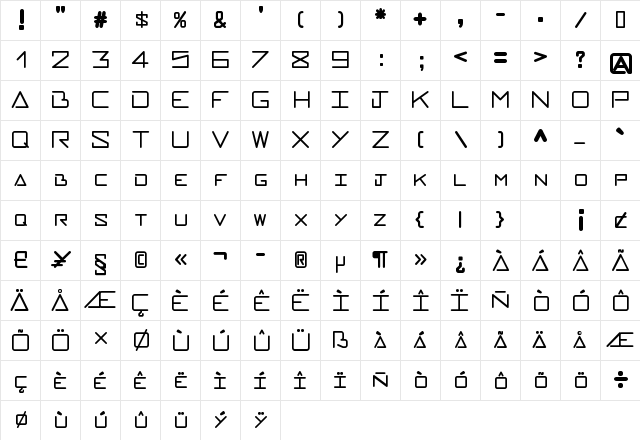
Designers Regular
| Foundry | DesiGn Dnub |
| Designer | DNUB |
Design Context for Designers Typeface
Designers offers clean, dependable letterforms without strong stylistic allegiance, making it a practical choice for designers who need flexibility.